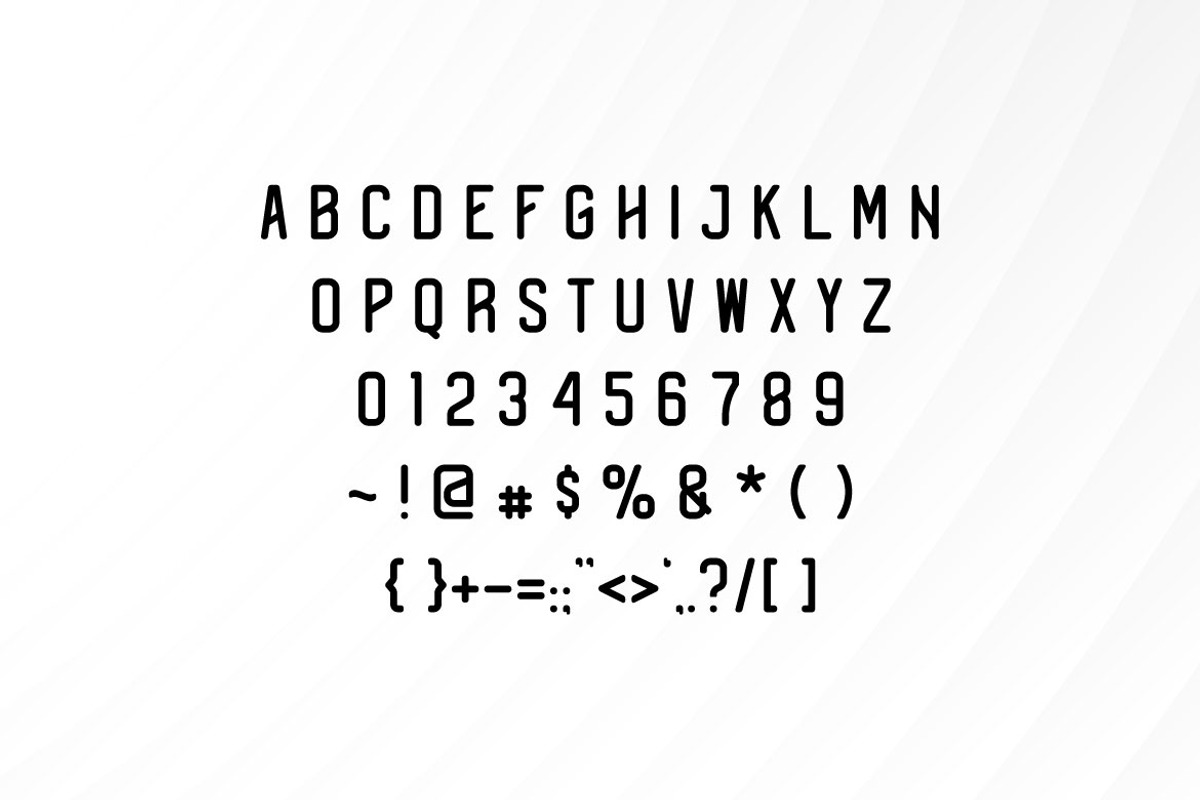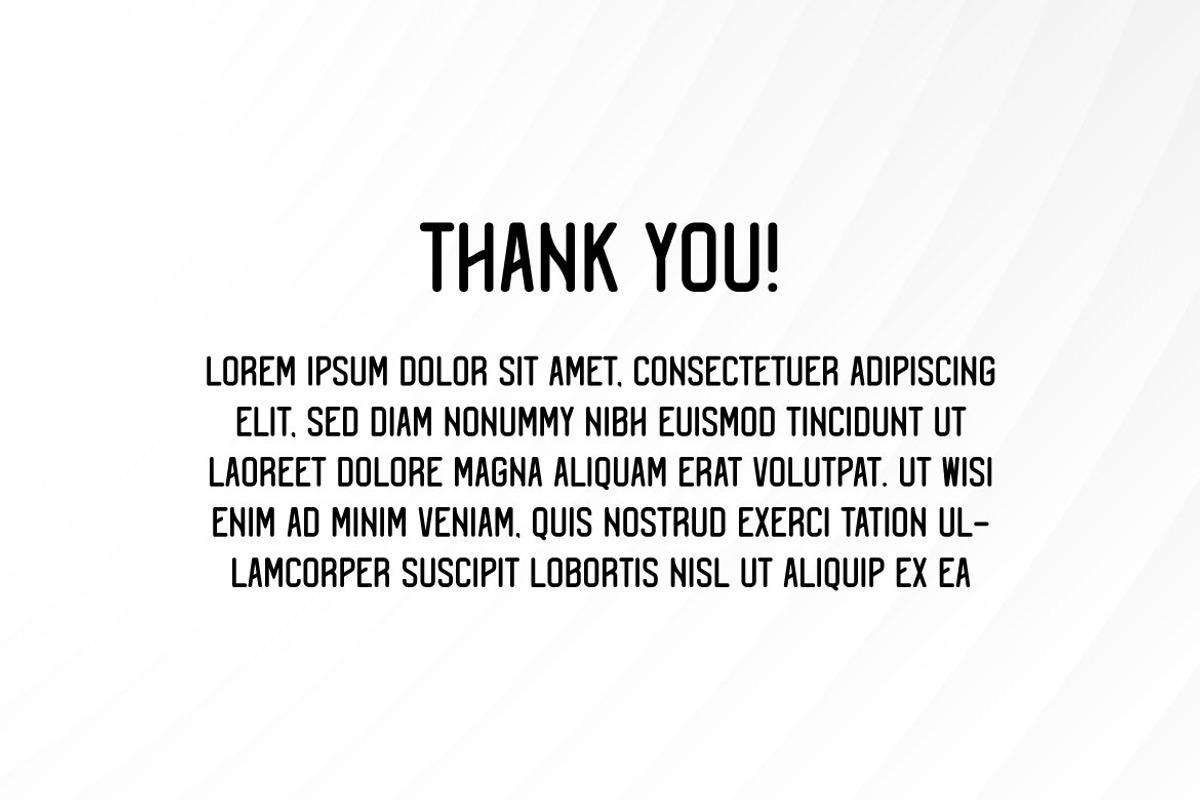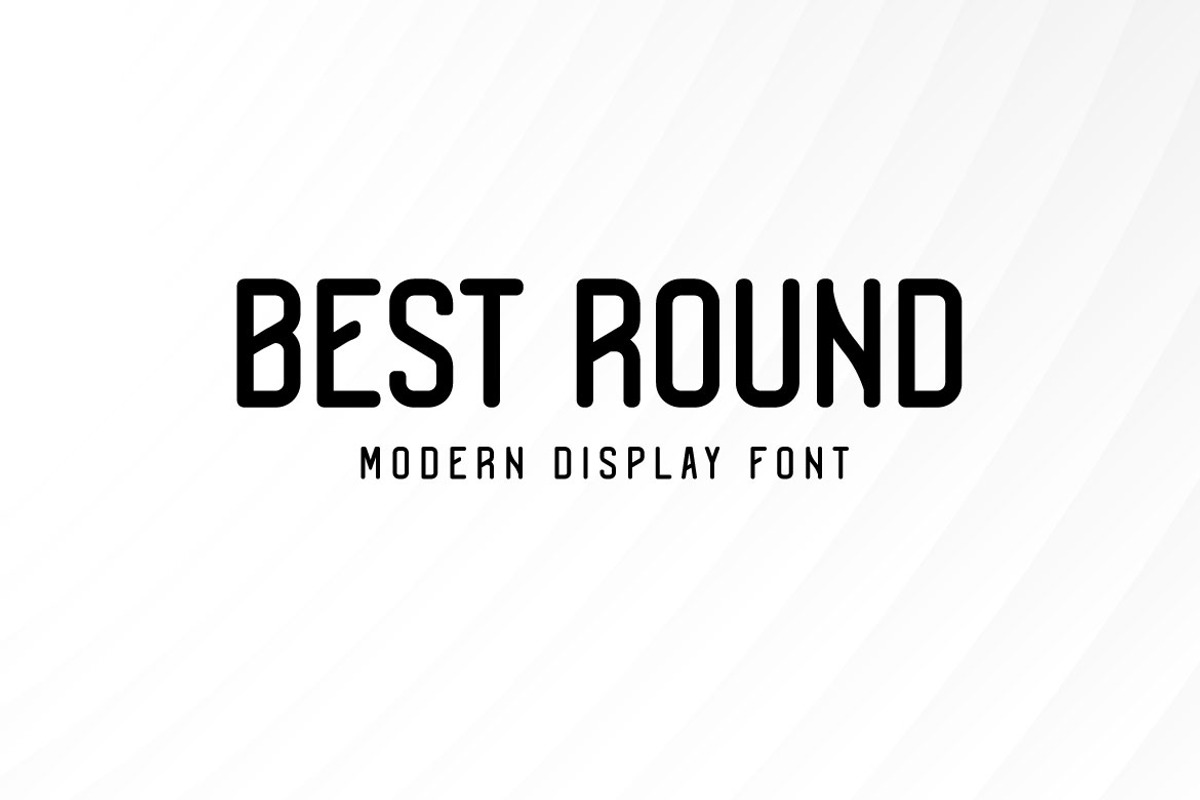
Best Round - Modern Display Font
If you are looking for a modern, clean and rounded display font, meet BEST ROUND
Best Round is perfect for any works, such as your poster, card, book title, headline of news, banner, flyer, stationery and many more. It also can be used in Any scale work.